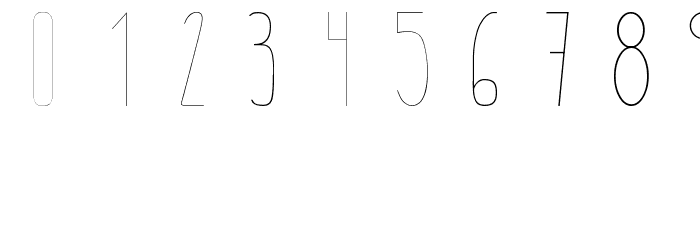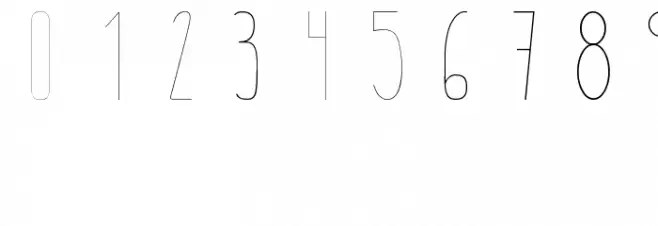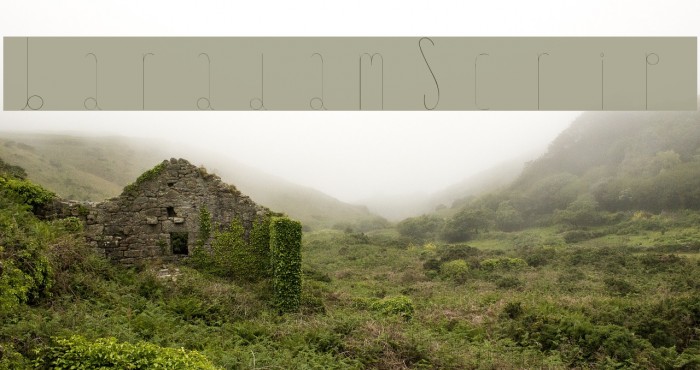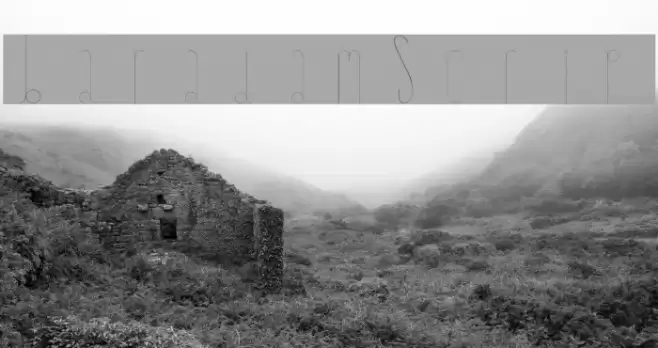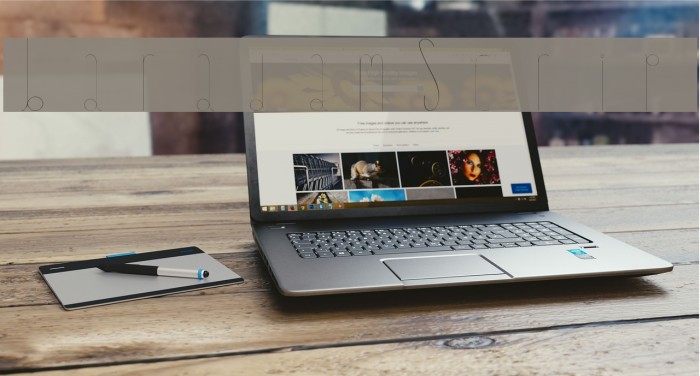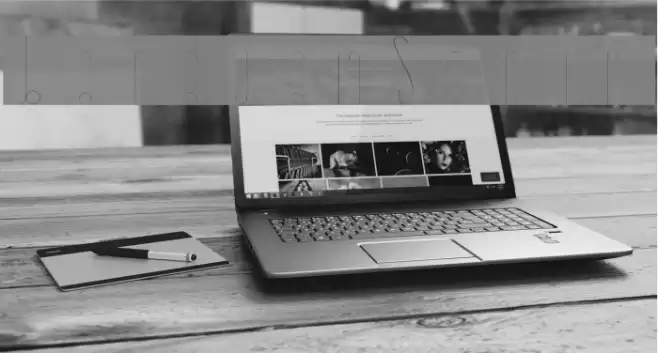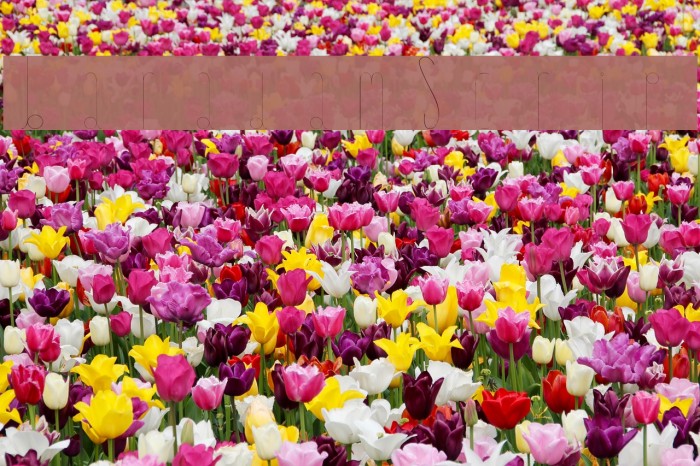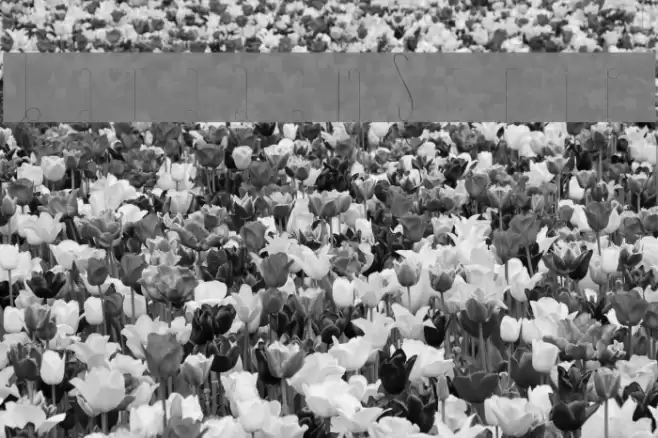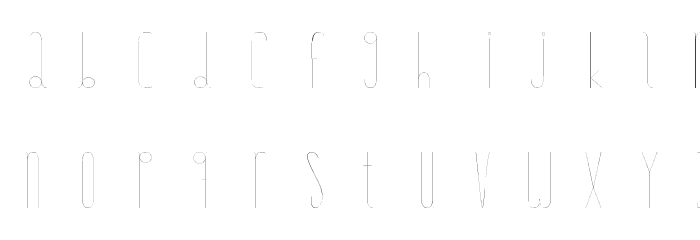
BaradamScript Font
This font features a minimalist and modern design with thin, elongated strokes. The characters are sleek and streamlined, giving it an elegant and contemporary appearance. The uppercase and lowercase letters maintain a consistent height, contributing to a uniform look. The numerals are distinct and maintain the same slender style, ensuring readability. The special characters are designed to blend seamlessly with the overall aesthetic, offering a cohesive visual experience. This font's simplicity and elegance make it suitable for a variety of design applications.
| Use Case | Headlines, Logos, Invitations |
| Proposed Projects | Ideal for modern branding, minimalist posters, elegant invitations, and sleek website headers. |